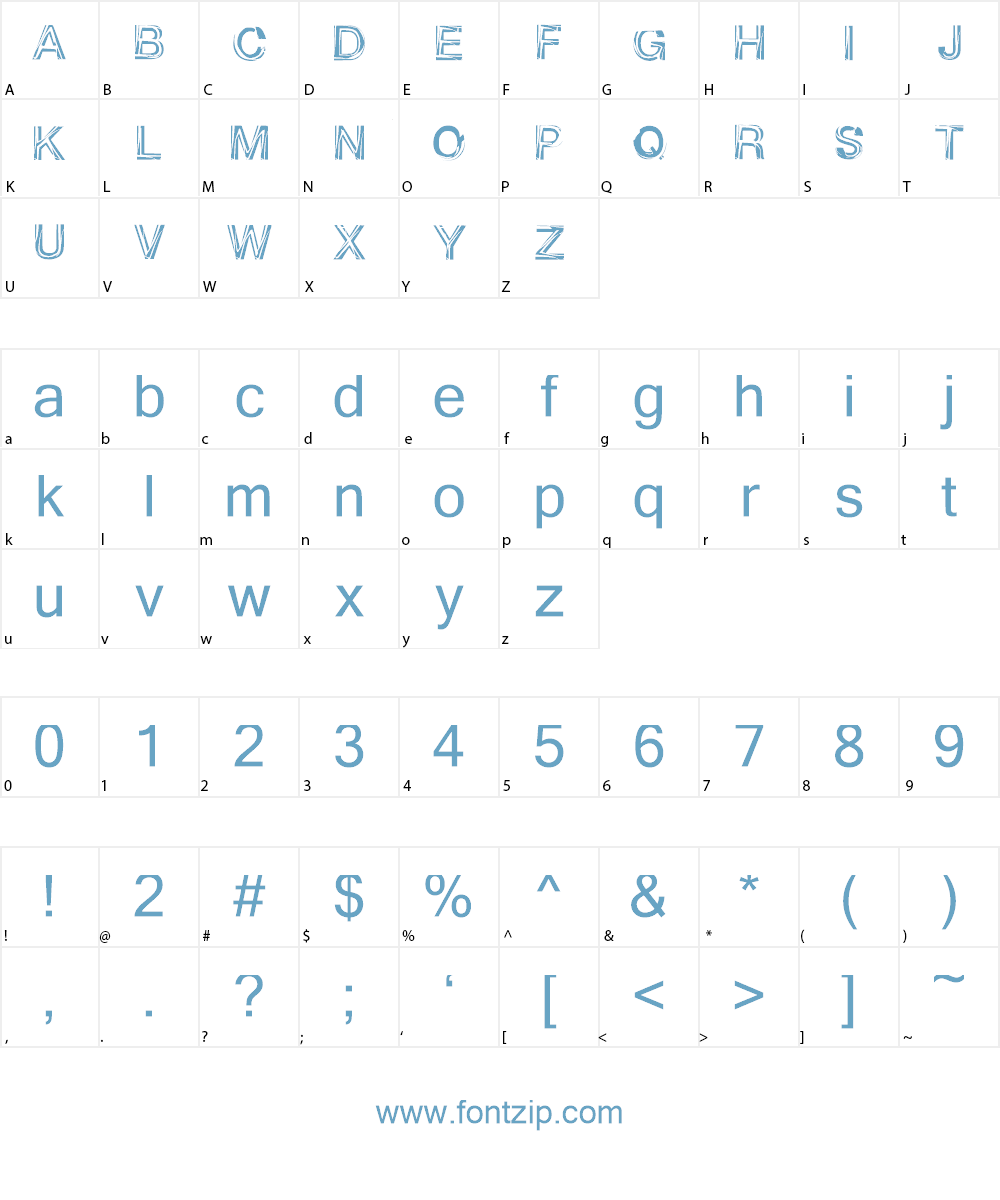
Ouch! This font can sting! For all your pointy, spiky and stingy needs. Comes as regular and bold.This is only a Demo and only showcases uppercase. If you would like the full version please send £15 to  via Paypal.